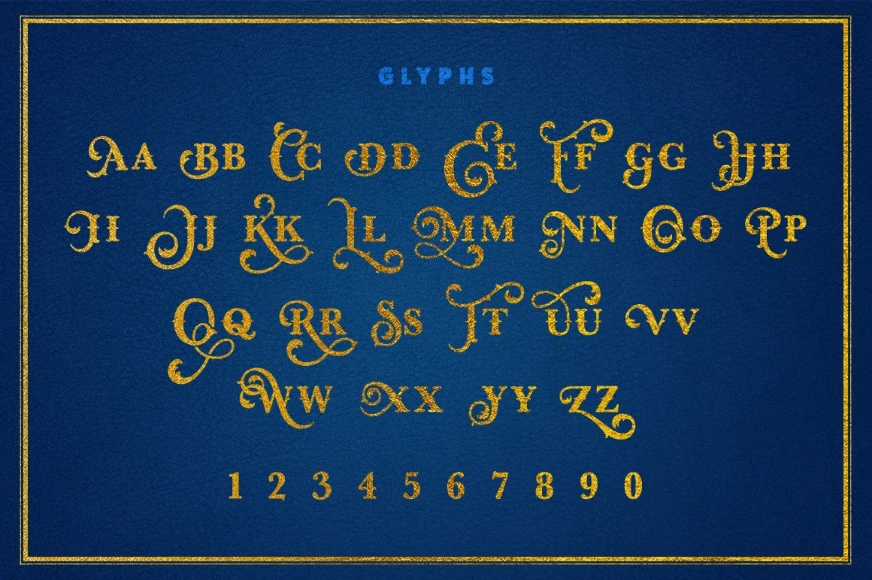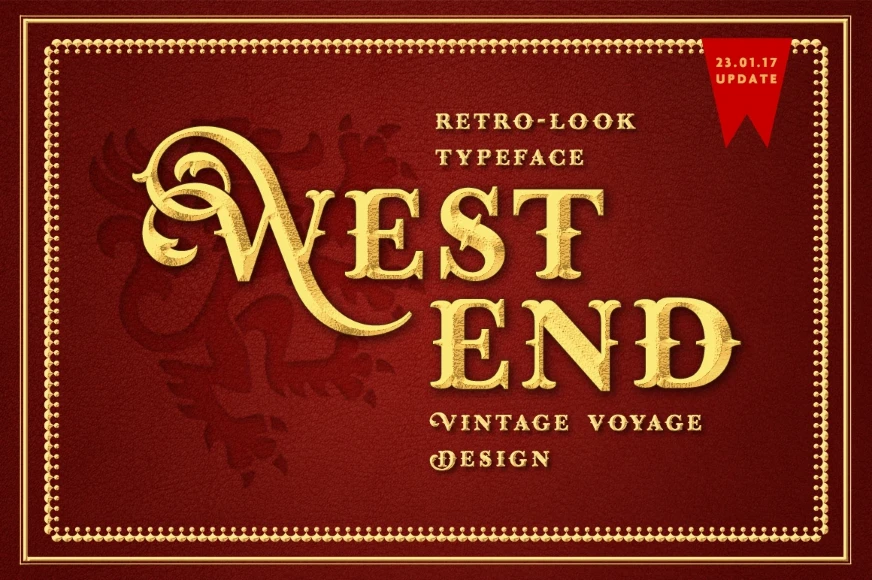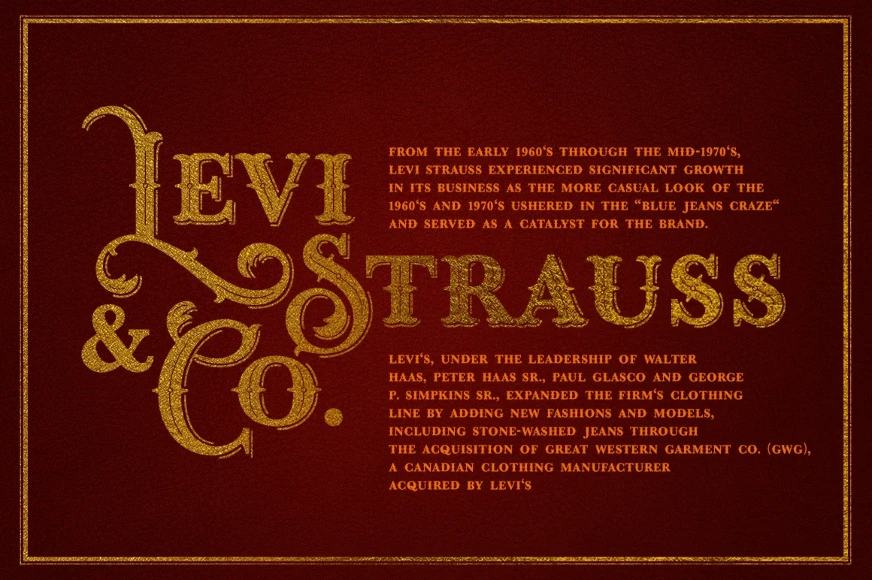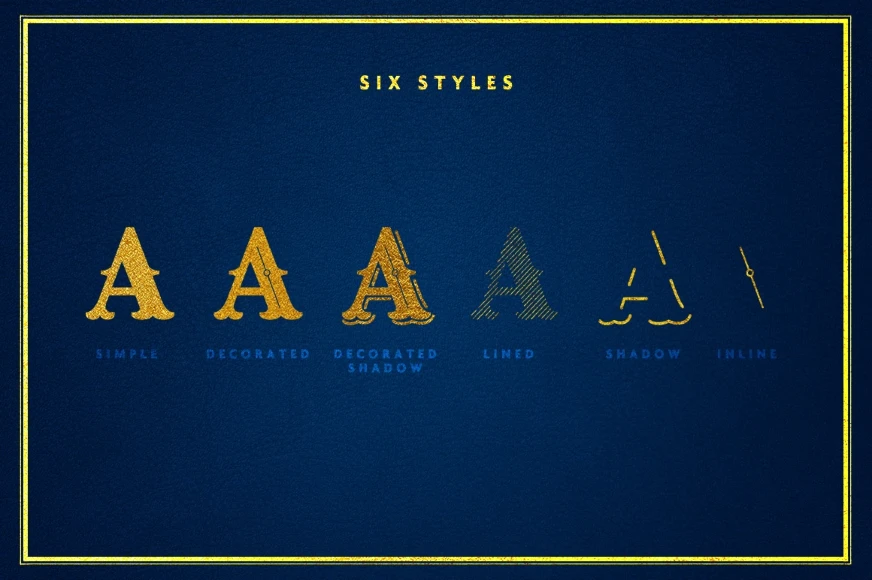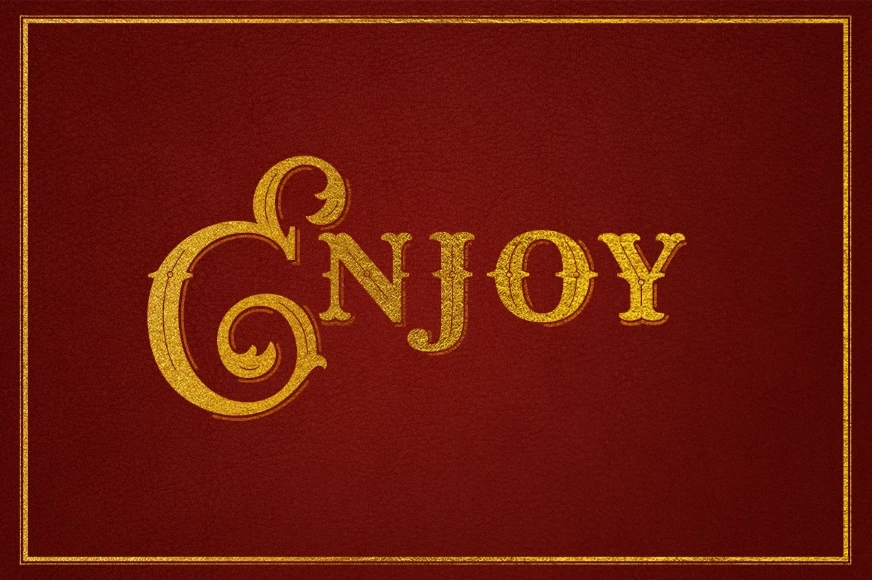
West End
West End Decorate
West End Decorate Shadow
West End Inline
West End Lined
West End Shadow
West End Simple
Vintage Voyage Design’s West End is a display typeface inspired by early 20th-century hand-drawn advertising and signage. With its bifurcated stems, decorative inline, subtle shadow, and dramatic swashes, it is perfect for a saloon-themed party, a stage decoration for a theatrical play, an old-fashioned candy display, or simply wanting to prompt the feeling of another time and place. Blaze a new trail! West End is ready to set the stage for your painted lady project.